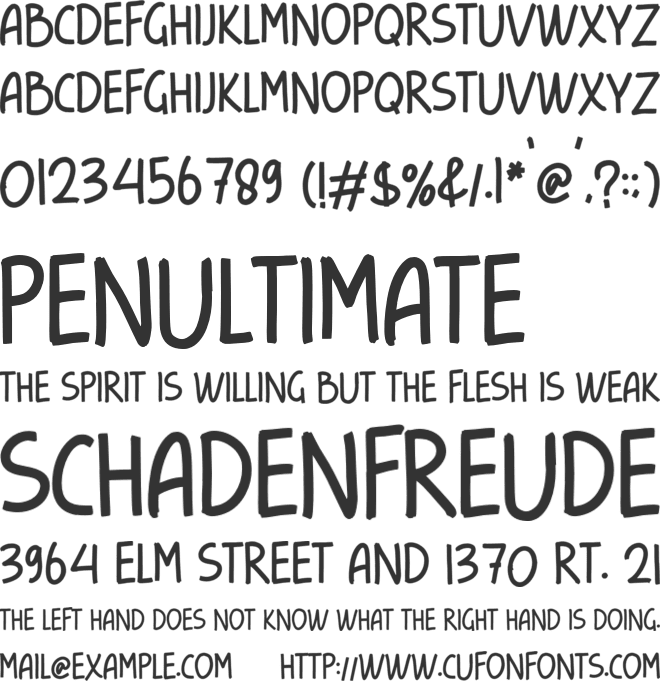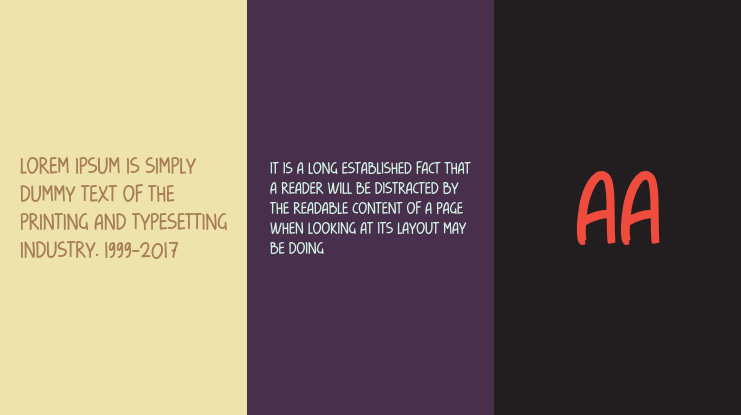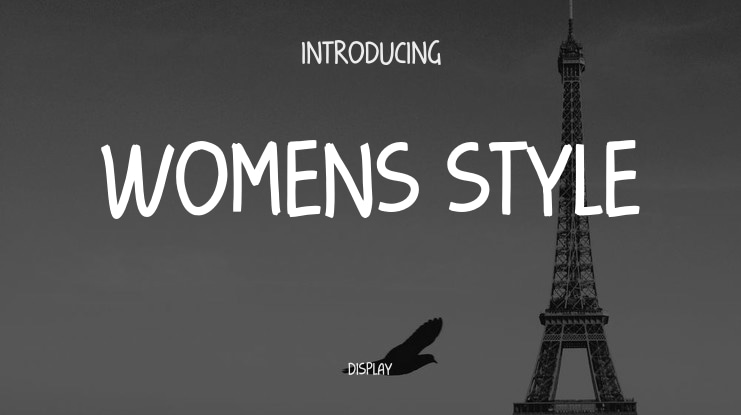
Womens Style Font
Muhammad Nasir
This font bursts with a playful, approachable energy, like a friendly greeting scribbled on a cafe chalkboard. Imagine the feeling of a thick marker dancing across paper, leaving behind bold, slightly uneven strokes that exude a genuine, hand-crafted charm. It’s the kind of lettering that whispers of creativity and a relaxed, confident spirit, perfect for designs that aim for a personal and inviting touch.